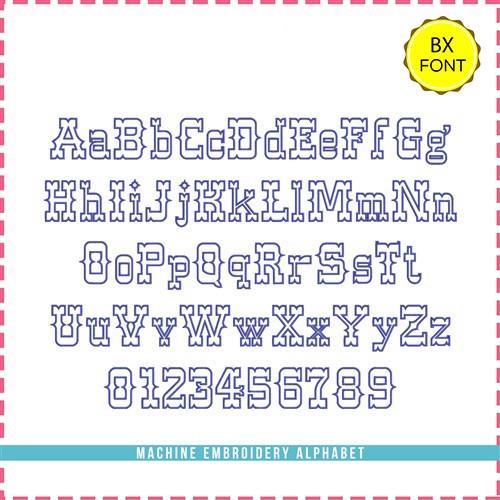
Maya Kreations is happy to present Wanted Font Embroidery Font - Bold Varsity Slab Serif Style - BX font machine embroidery font which has Bold varsity style machine embroidery font ideal for jackets and banners, showcasing a striking 'WANTED' text. Available in BX font and Embrilliance formats. included. If you would like to view more embroidery fonts and alphabets please search our embroidery fonts page.
Wanted Font Embroidery Font - Bold Varsity Slab Serif Style - BX font